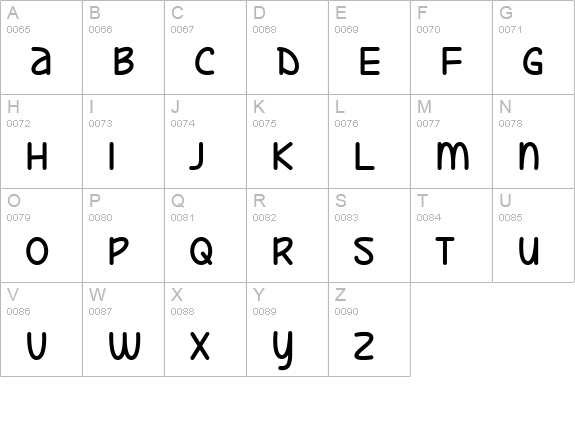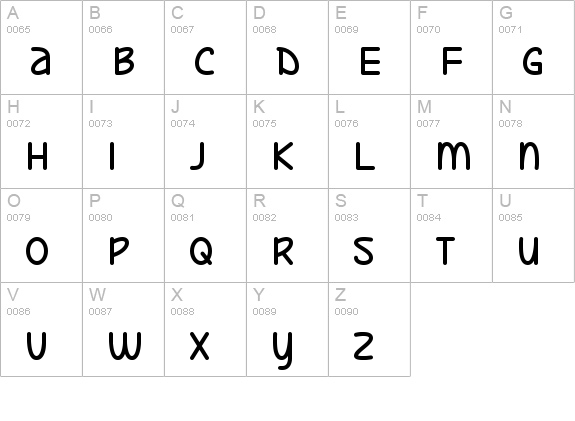
Ladybug Love Demo font is a whimsical and playful typeface that is sure to bring a touch of charm and delight to any design project. With its curvaceous and fluid letterforms, this font captures the essence of joy and happiness. Perfect for children's books, greeting cards, party invitations, or any design that needs a touch of lightheartedness. The Ladybug Love Demo font is not only visually appealing, but it is also free to download. That's right, you can add this delightful font to your collection without spending a penny. It is freely available to download at FontsMarket.com, a trusted source for high-quality fonts. Whether you're a professional designer or a DIY enthusiast, this font is a must-have. Its versatility allows it to be used for a wide range of projects, from branding and advertising to personal crafts and scrapbooking. Its cheerful and playful nature will instantly captivate your audience and leave a lasting impression. With Ladybug Love Demo font, you can let your creativity soar and create designs that are simply irresistible. So go ahead and download this free font today from FontsMarket.com. Get ready to add a touch of whimsy and joy to your next project and spread the love with Ladybug Love Demo font.